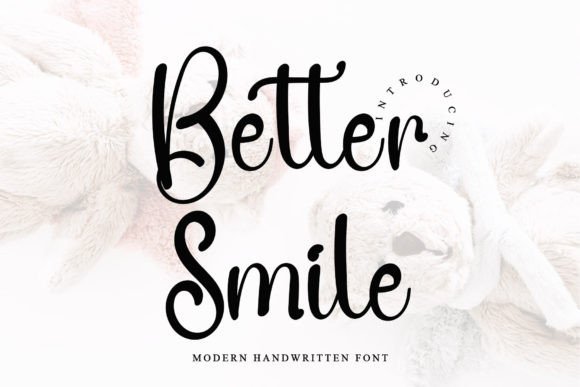
The Quest for the Perfect Font: How Better Smile Stole My Heart
I’ll never forget the frustration of working on a design project, hours pouring over every detail, and then getting stuck on one thing: the font. It was for a client’s wedding invitation, and I wanted something that would make the occasion feel extra special. I scrolled through font after font, but nothing seemed quite right. That was until I stumbled upon Better Smile – a beautiful, handwritten font that instantly captured my attention.
A First Impression: What I Love About Better Smile
Better Smile is an exquisite handwritten font, masterfully designed to become a true favorite. Here are just a few things that make it stand out:
- ✨ Classy calligraphic influences: Better Smile maintains a sophisticated, elegant feel that’s perfect for special occasions or high-end branding.
- ✅ Contemporary and fresh: Despite its classic roots, the font feels modern and versatile, making it suitable for a wide range of projects.
- 💫 Beautifully crafted: The attention to detail in Better Smile is impressive, with smooth lines and a natural flow that makes it a joy to use.
An Honest Review: The Not-So-Perfect Details
While Better Smile has stolen my heart, it’s not without its quirks:
- 🤔 Limited use in body text: Due to its elegant, cursive nature, Better Smile may not be the best choice for longer blocks of text. It’s perfect for headings, titles, and short phrases, but may become difficult to read in larger quantities.
- ⚠️ Some characters may require manual adjustment: As with any font, you may need to tweak certain characters to ensure they fit together seamlessly. This is particularly true when using the font’s OpenType features.
The Story Behind Better Smile
While the true story behind Better Smile’s creation may be unknown, it’s easy to imagine a talented designer pouring their heart into crafting a font that would bring joy and elegance to creative projects. Perhaps they drew inspiration from classic calligraphy, combined with a passion for modern design. Whatever the story, the result is a font that’s both timeless and fresh.
| Font Name | Better Smile Font |
| What makes Better Smile unique? | Better Smile’s unique blend of classic calligraphic influences and modern freshness makes it stand out from other fonts. |
| Is Better Smile difficult to read? | While Better Smile is elegant and cursive, it may not be the best choice for longer blocks of text. It’s perfect for headings, titles, and short phrases. |